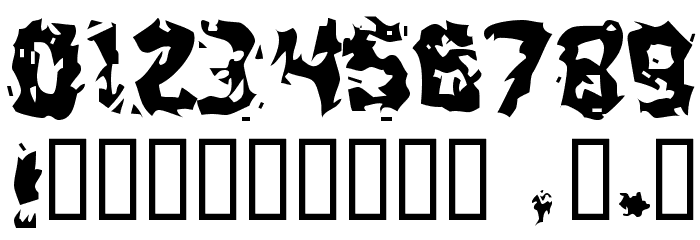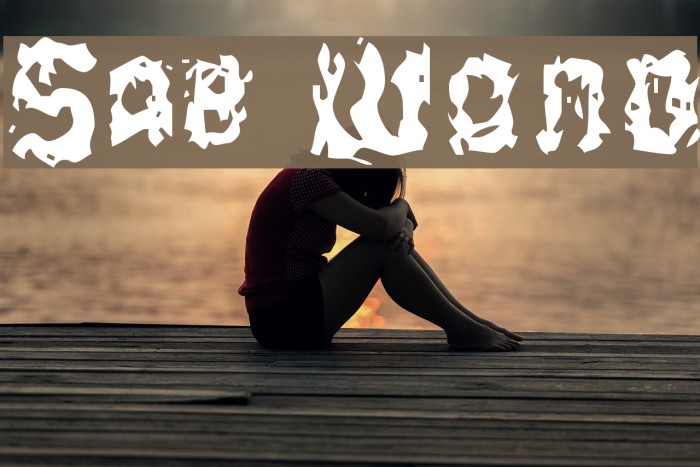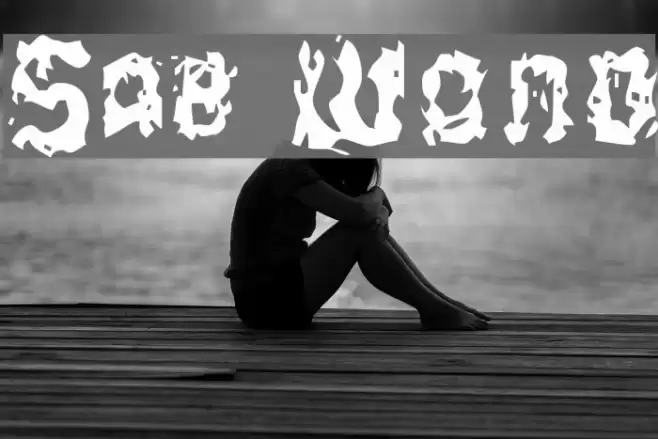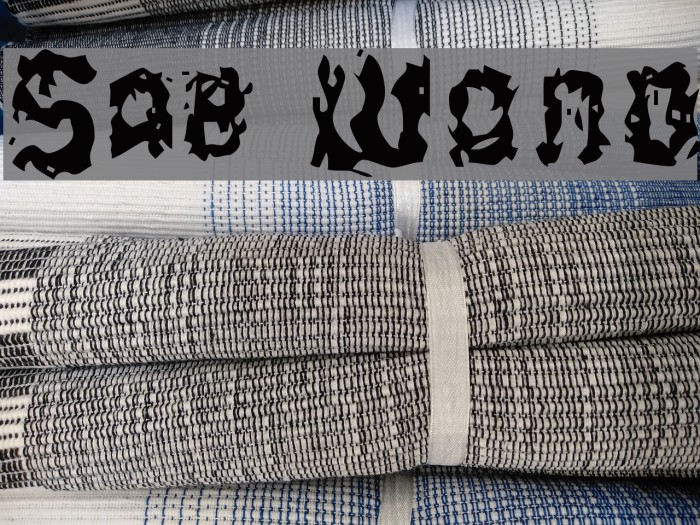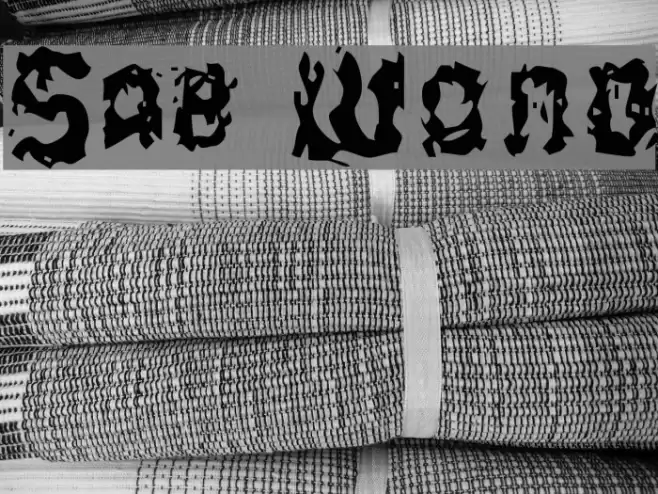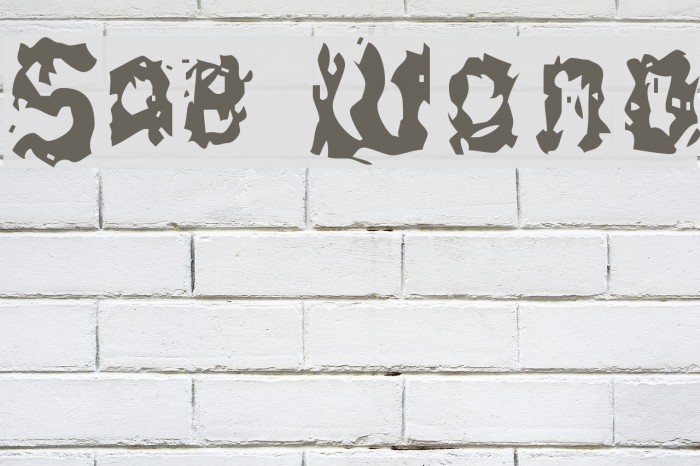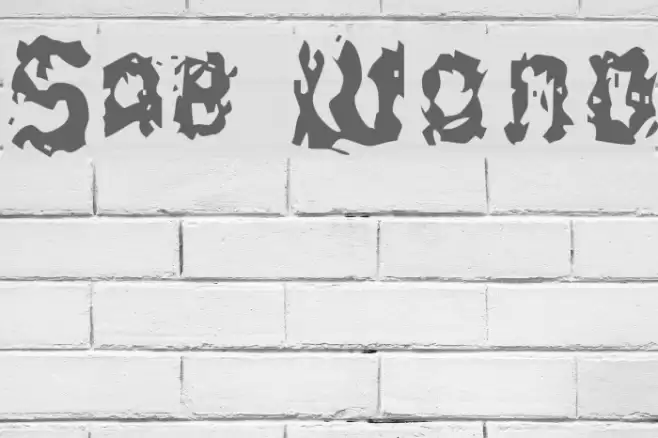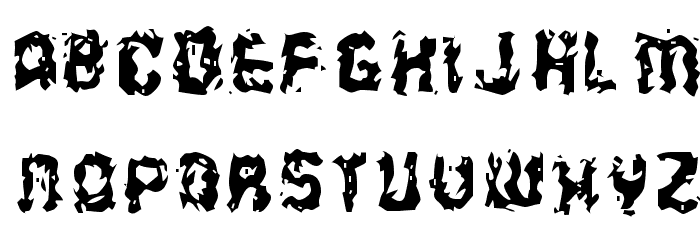
Stab Wound Font
Stab Wound Description
This font features a highly distressed and chaotic design, with each character appearing as if it has been torn or slashed. The jagged edges and irregular shapes give it a raw, aggressive look, making it ideal for projects that require a sense of edginess or intensity. The uppercase and lowercase letters maintain this rugged style, with numbers and special characters following suit. The overall appearance is bold and impactful, capturing attention with its unique and unconventional aesthetic.
| Proposed Projects | Ideal for horror-themed designs, edgy posters, album covers, or any project needing a bold, intense aesthetic. |